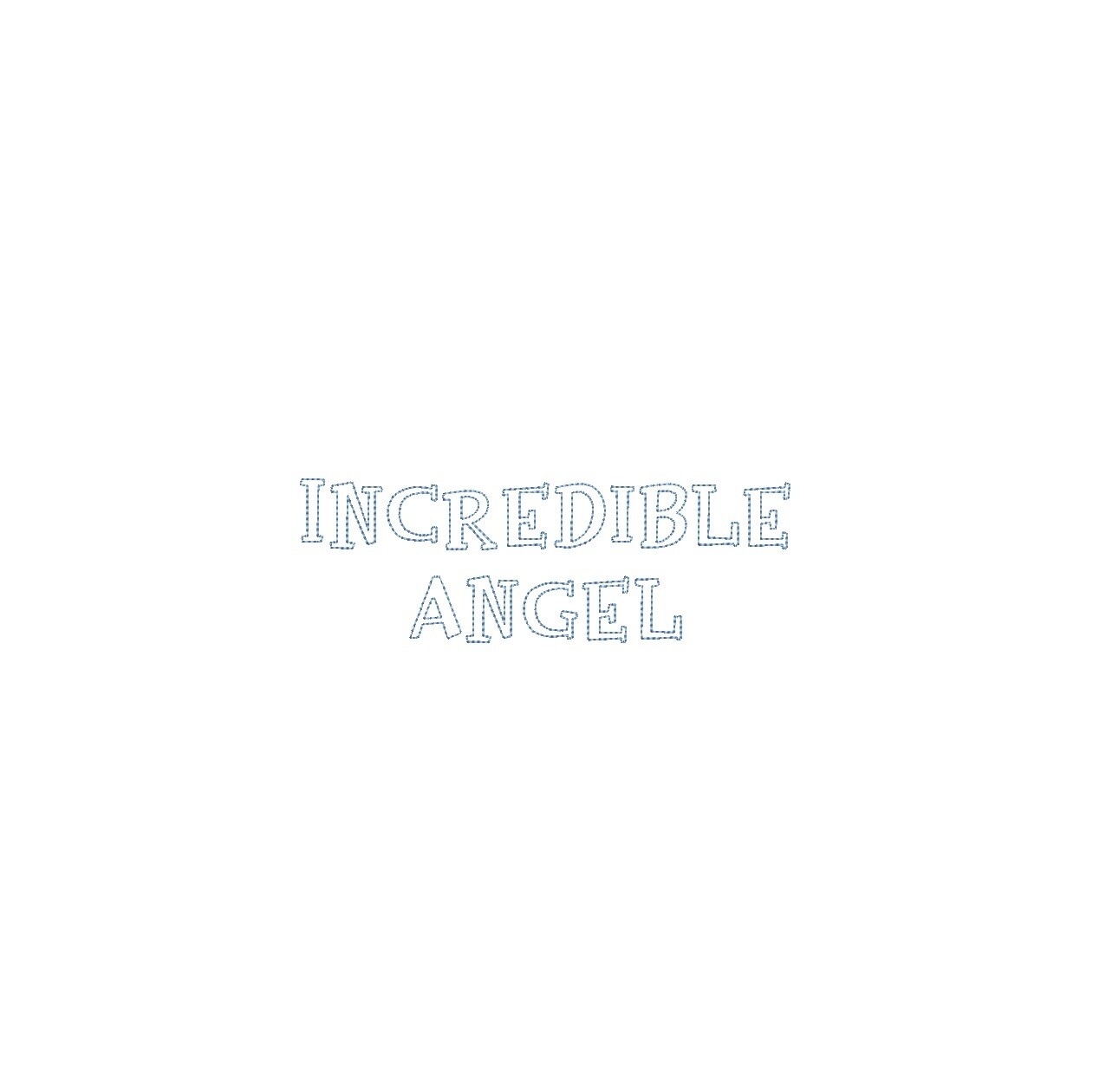
Elevate your embroidery with the Incredible Angel Bean Stitch Outline ESA font, designed for compatibility with Wilcom Studio e4.5.6 and Hatch 3 versions and beyond. This font adds a heavenly touch of grace and beauty to your designs, ideal for monograms, labels, and decorative elements. The intricate bean outline style imparts depth and character, enhancing visual appeal. Seamlessly integrate and achieve precise stitching, elevating your embroidery projects. Explore a realm of creative possibilities within Wilcom Studio and Hatch software using the Incredible Angel Bean Stitch Outline ESA font. Make a statement with this exceptional font that brings celestial charm to your creations.